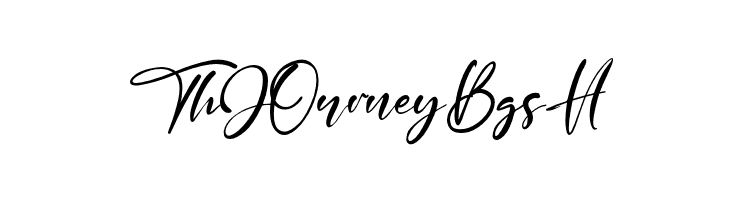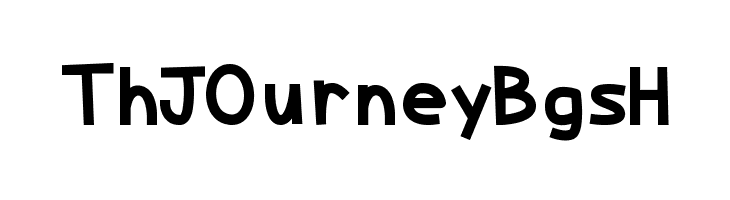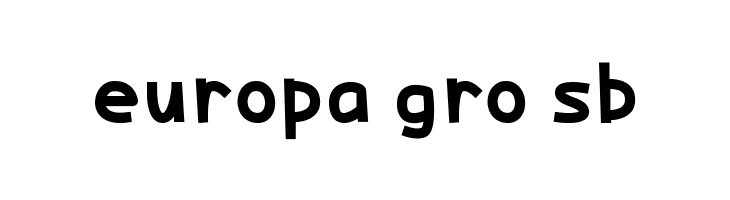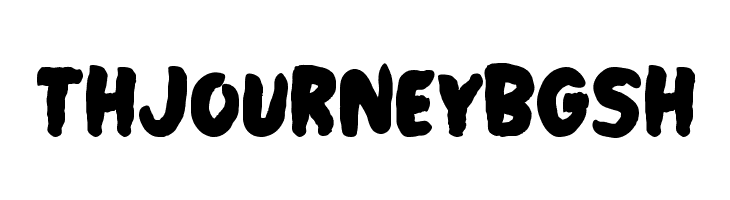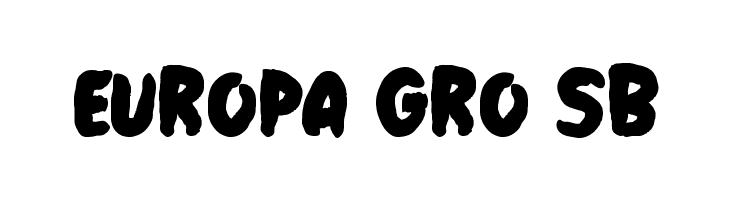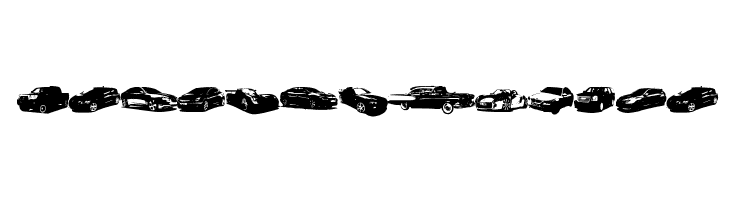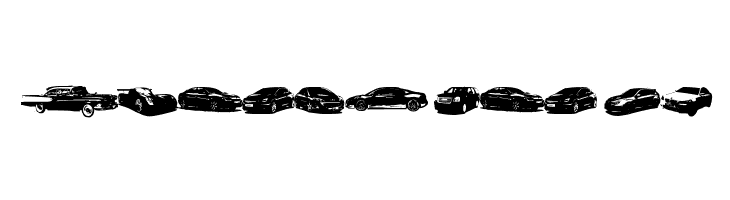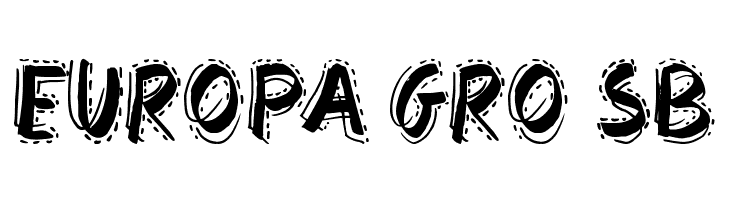
A font featuring car silhouettes for letters, paired with classic serif numbers and symbols.
An elegant and flowing script font with cursive strokes and sophisticated flourishes.
A modern, light, and italicized font with sleek, thin strokes.
A bold, playful font with thick, uneven strokes and a hand-drawn feel.
A playful, bold font with a hand-drawn, friendly appearance.
A distressed, edgy font with a hand-drawn, dynamic style.
A bold, playful font with a hand-drawn, outlined style.
A modern, clean sans-serif font with a sleek and professional appearance.